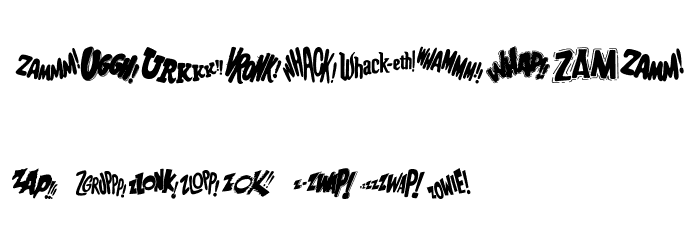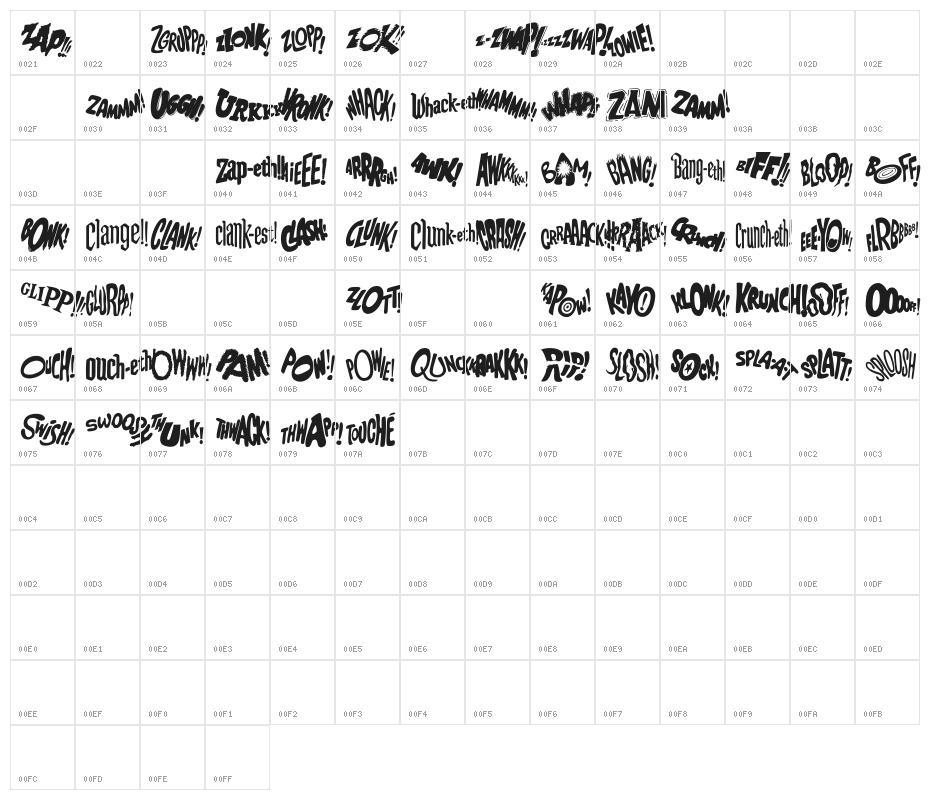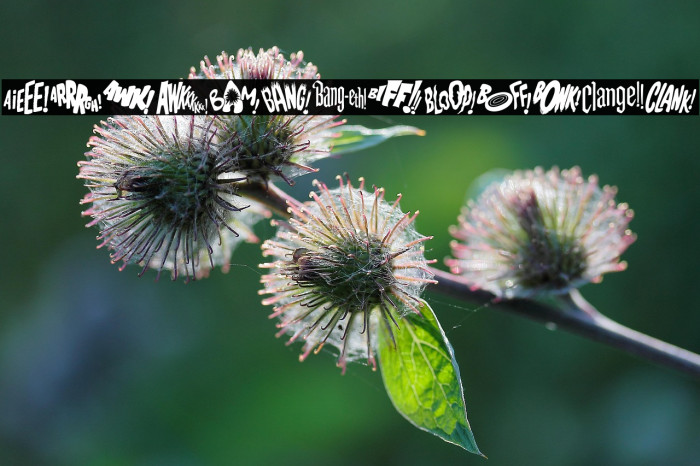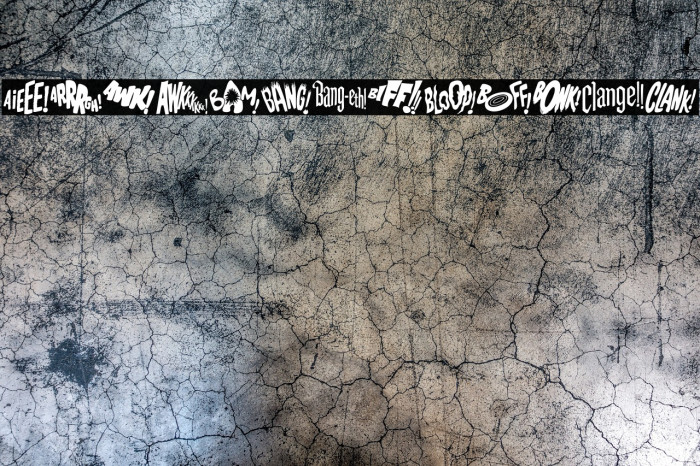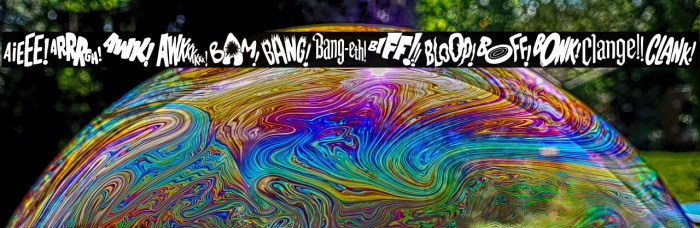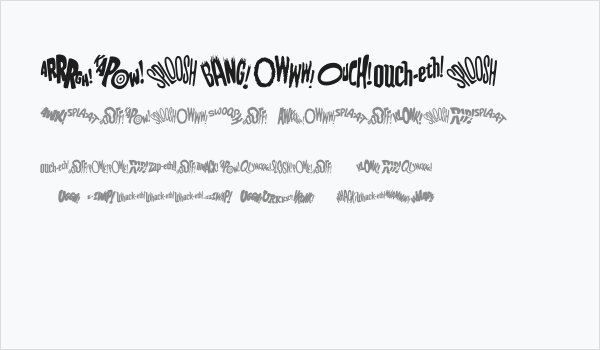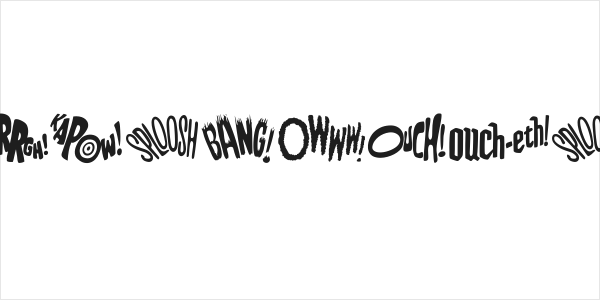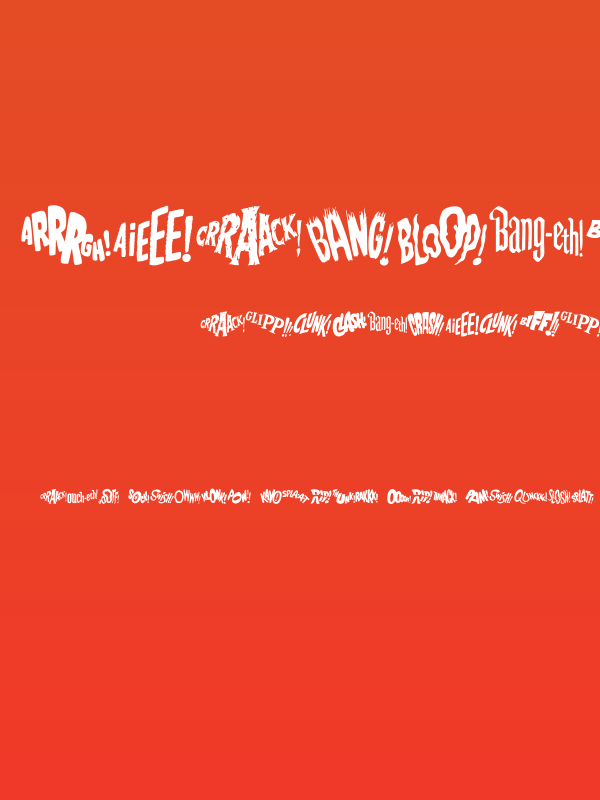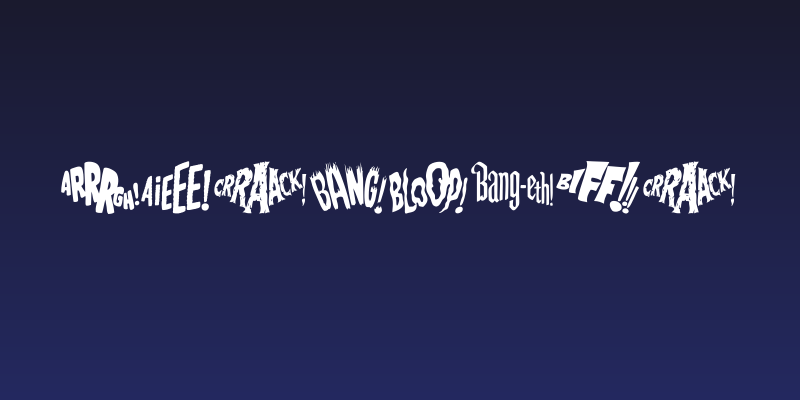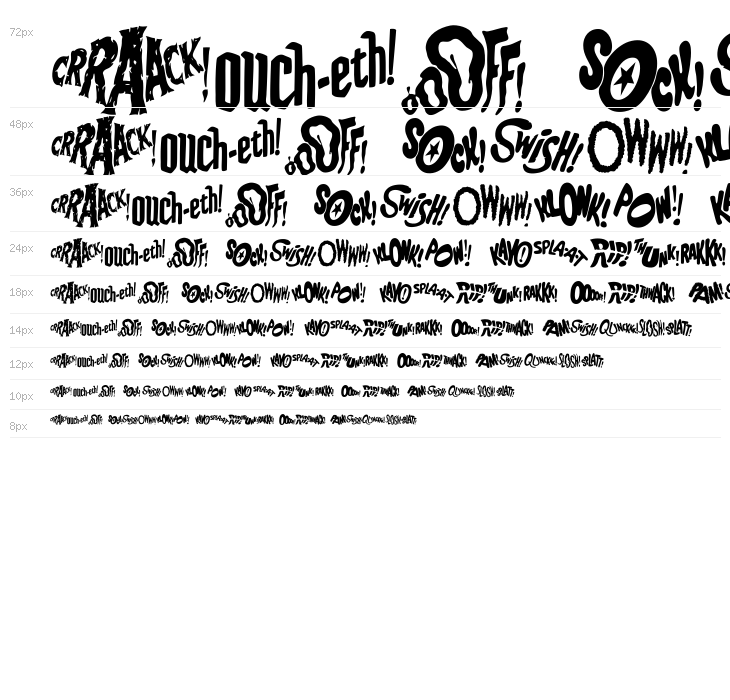
BatFight Font
BatFight Description
This font is a dynamic and energetic display style, characterized by its exaggerated, comic book-inspired letterforms. Each character seems to leap off the page, with varying heights and widths that create a sense of movement and action. The font is highly decorative, with bold strokes and playful distortions that mimic the sound effects often seen in comic strips. It's designed to capture attention and convey excitement, making it ideal for projects that require a lively and impactful visual presence.
| Overall Style | Comic, Energetic, Playful |
| Use Case | Headlines, Posters, Comic Books |
| Proposed Projects | Ideal for comic books, graphic novels, posters, and any design needing a playful, action-packed aesthetic. |